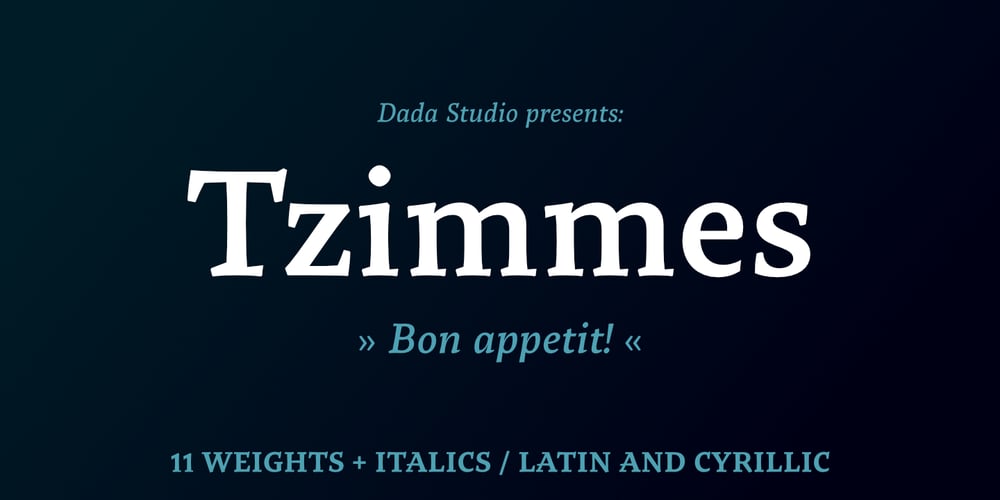
Tzimmes
Tzimmes font
Tzimmes Font Family was designed by Michał Jarociński and published by Dada Studio. Tzimmes contains 22 styles and family package options. Tzimmes is a tasty morsel for those who love tasty letters. The fleshy serifs combined with the subtle references to calligraphy create a distinctive character that will turn every text into a feast for the eyes. The family consists of 22 weights including true italics. This will allow you to freely compose even the most demanding projects. Book? Magazine? Logotype? Everything available à la carte! Light and bold weights, due to their strong personality, are perfect for display uses. At the same time, Regulars create a harmonious structure that provides good legibility in long texts. Tzimmes covers all latin languages and cyrillic. It contains a wide set of numerals, small capitals, fractions, ligatures and other OpenType goodies. Bon appetite!